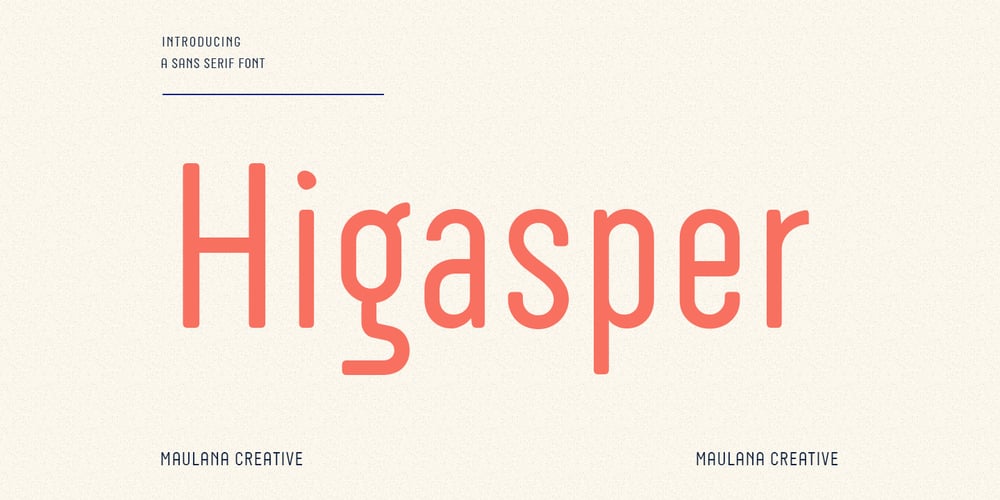
MC Higasper Font Family was designed by Gilang Maulana and published by Maulana Creative. MC Higasper contains 1 styles and family package options. Higasper is a simply semi-monospace sans font. With medium low contrast stroke, fun character with a bit of ligatures and alternates. To give you an extra creative work. Higasper font support multilingual more than 100+ language. This font is good for logo design, Social media, Movie Titles, Books Titles, a short text even a long text letter and good for your secondary text font with sans or serif. Make a stunning work with Higasper font. Cheers, Maulana Creative